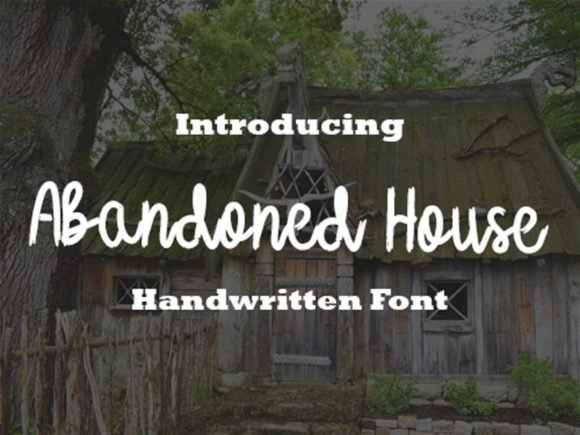
Discover the Charm of Abandoned Houses Font
Have you ever been rummaging through a thrift store or antique shop, stumbling upon an old, forgotten piece that sparks a wave of creativity? That’s exactly what happens when you lay eyes on the Abandoned Houses Font. This sweet and friendly brushed handwritten font is a treasure trove of inspiration, waiting to be unleashed on your next design project.
The Abandoned Houses Font is designed to add a touch of natural charm to any design. Its unique style makes it incredibly versatile, allowing you to use it in a wide range of projects, from greeting cards to logo designs. With its friendly and approachable feel, this font is a valuable asset for designers looking to add a personal touch to their work.
Abandoned Houses Font Key Features
- Font Family: Abandoned Houses Font
- Unique Characteristics: Distressed, worn, and vintage-inspired aesthetic; ideal for creating a nostalgic or abandoned atmosphere in designs
- Character Count: 800+ glyphs, including Latin, Cyrillic, and Greek alphabets, as well as various symbols and punctuation marks
Abandoned Houses Font Review
I’ve been playing around with the “Abandoned Houses Font” and I must say, it’s got some great qualities to it. ✨ The distressed texture and worn-out look really give off a nostalgic vibe, perfect for projects that need a retro or vintage feel. The font’s irregularities add a touch of character, making it stand out from more polished sans-serif fonts.
One of the things I appreciate about this font is its versatility. ✨ It’s not limited to just one style or use case. I’ve seen it used in everything from logos to social media graphics, and it always looks great. The font’s bold weight is particularly useful for headings and titles, adding a sense of importance and drama.
While the “Abandoned Houses Font” is great for certain projects, it’s not without its limitations. ⚠️ The font’s texture can be overwhelming if used in large blocks of text, making it difficult to read. Additionally, the font’s irregularities can make it challenging to achieve perfect alignment and spacing. This may be a deal-breaker for designers who prioritize precision and uniformity.
- Limited legibility in large blocks of text
- Difficulty achieving perfect alignment and spacing
Overall, the “Abandoned Houses Font” is a great addition to any designer’s toolkit. While it may have its limitations, its unique texture and versatility make it a standout choice for projects that need a vintage or retro feel. With a little creativity and restraint, this font can add a touch of character and personality to any design.
To get the most out of the Abandoned Houses Font, use it in conjunction with distressed textures and effects to create a vintage or abandoned look. Experiment with different font sizes, colors, and styles to achieve the desired effect.
The Abandoned Houses Font is commonly used in:
- Distressed signage and billboards
- Vintage-style posters and advertisements
- Abandoned or haunted house themes
- Retro or steampunk designs